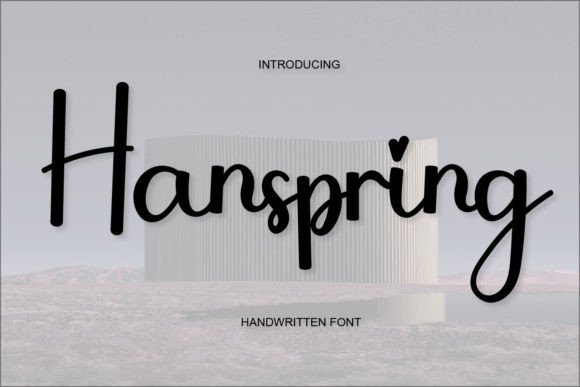
How Hanspring Transformed My Bakery’s Brand
Running a small bakery has always been about more than just baking good bread and pastries. It’s about creating an experience, building trust, and making every detail count. When I decided to refresh my brand, I knew that one of the most impactful changes would come from typography. That’s when I discovered Hanspring—a font that not only looked beautiful but also felt like the perfect fit for my brand’s personality.
A Font That Speaks Volumes
Hanspring is a stylish and elegant handwritten font that brings warmth and sophistication to any design. Its flowing curves and delicate strokes give it a handcrafted feel, making it ideal for businesses that want to convey creativity, artistry, and personal touch. What really caught my eye was how versatile it is—it can be used in a variety of ways, from logos and packaging to social media graphics and printed materials.
I first used Hanspring on my new product labels. Before, I was using a generic sans serif font that felt too modern and impersonal. With Hanspring, the labels suddenly felt more inviting and memorable. Customers started noticing the difference, and I began receiving compliments on how “special” my packaging looked.
Bringing Consistency to Every Touchpoint
Consistency is key when building a brand. Whether it’s your website, social media, or physical products, everything should align with your visual identity. Hanspring helped me achieve that consistency across all my materials.
I used it for my logo, which now features a simple yet elegant design that reflects the care and attention I put into each product. I also applied it to my menu, thank-you cards, and even my Instagram templates. The result? A cohesive look that makes my brand instantly recognizable.
One of the biggest surprises was how well Hanspring worked on small labels and mobile screens. I was worried that the intricate details might get lost, but thanks to its clean lines and readable structure, it performed beautifully at every scale. Even on product mockups and digital ads, Hanspring maintained its charm without sacrificing clarity.
Designing with Purpose
Typography isn’t just about aesthetics—it’s about communication. The right font can make your message more engaging, your brand more trustworthy, and your designs more professional. Hanspring does all of that and more.
For example, I used Hanspring as the primary font on my website banners and social media posts. It added a touch of elegance that complemented my brand’s image while still being easy to read. I paired it with a clean sans serif font for headings and body text, creating a balanced and modern look.
I also experimented with different weights and styles to suit various purposes. For headlines and short phrases, the bold version of Hanspring stood out perfectly. For decorative accents or supporting text, the lighter versions added subtle flair without overwhelming the design.
Real-World Applications
Hanspring is not just for logos and labels—it’s a font that can elevate every part of your brand. Here are a few examples of how I’ve used it:
- Bakery Box Labels: Hanspring made my product boxes feel more premium and personalized.
- Social Media Graphics: It added a touch of sophistication to my Instagram and Facebook posts.
- Thank-You Cards: The font gave my customers a sense of appreciation and care.
- Menu Design: It made my café menu look more inviting and visually appealing.
- Product Packaging: Hanspring helped create a consistent look across all my product lines.
Each time I used Hanspring, I was reminded of how much impact a single font can have on a brand’s overall identity. It’s not just about looking good—it’s about feeling good, and making customers feel valued.
Getting Started with Hanspring
If you’re considering Hanspring for your business, here are a few things to keep in mind:
First, make sure to check the included styles, file formats, and licensing options. Hanspring offers a range of weights and alternates, so you can customize it to fit your needs. It also supports multiple languages, making it a great choice for businesses that operate internationally.
Next, think about how you’ll use the font. Will it be for headlines, logos, or packaging titles? Hanspring works best for display text and decorative accents, but it can also serve as a supporting font in certain contexts. Pair it with a clean sans serif font for a balanced look.
Finally, don’t forget to test it in different sizes and environments. Ensure that it remains legible on both print and digital platforms. This way, you’ll know it will work well for all your branding needs.
With Hanspring, I’ve not only improved the look of my bakery but also strengthened the connection between my brand and my customers. It’s a font that feels personal, professional, and powerful—all at once.